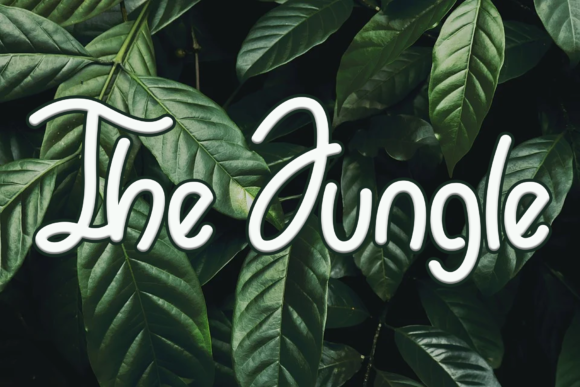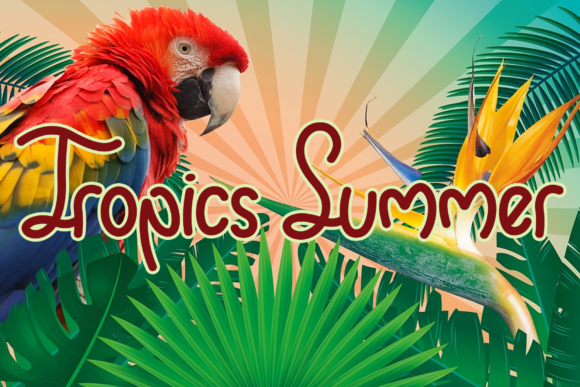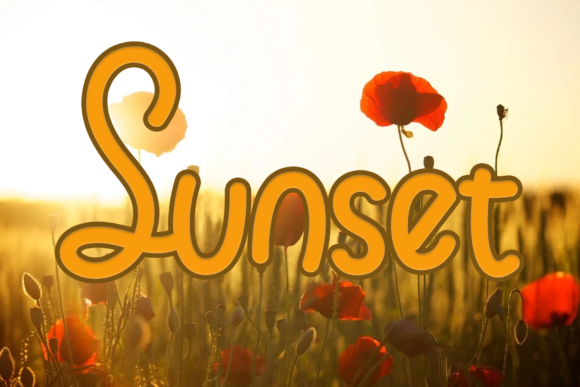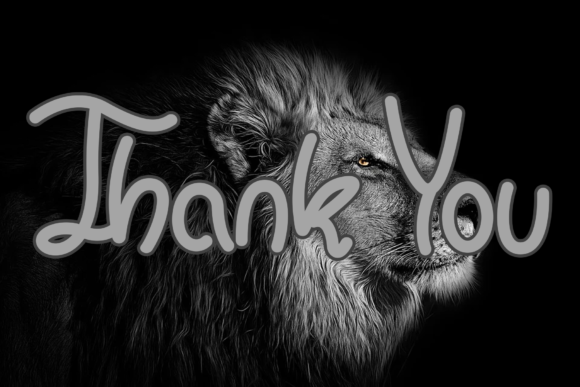
Introduction to Little Monkey Font
Have you ever stared at a blank canvas, searching for the perfect design element to bring your creative project to life? For many designers, that moment of inspiration is elusive – until now. Introducing the Little Monkey Font, a delightful handwritten font that’s sure to add a playful touch to any high-quality design.
With its transparent background and whimsical charm, the Little Monkey Font is a free download waiting to be discovered. This sweet and quirky font is perfect for designers looking to add a personal touch to their work, whether it’s a casual blog post or an informal invitation. Its value lies in its ability to elevate any creative project, making it a valuable resource for designers of all levels.
Key Features of Little Monkey Font
- High-quality design: The Little Monkey Font is a carefully crafted, professional-grade font designed to elevate any creative project.
- Transparent background: This font features a transparent background, making it ideal for use on images or backgrounds with complex designs.
- High-resolution design: The font is designed at a high resolution, making it suitable for use in large-scale designs and print materials.
- Unique, hand-drawn style: The Little Monkey Font features a unique, hand-drawn style that adds a touch of personality to any design project.
- Perfect for creative projects: This font is ideal for use in creative projects such as graphic design, digital art, and typography-based art.
Honest Review: Little Monkey Font
I recently stumbled upon the Little Monkey Font and was excited to give it a try for my next creative project. The font is described as high-quality and comes with a transparent background, which is perfect for any design resource.
- ✨ Great for digital use: The font’s transparent background makes it ideal for use on digital devices, such as websites, social media, and e-books.
However, I did encounter a few limitations during my usage. The font is limited in its expressiveness and may not be suitable for complex, narrative-based projects.
- ⚠️ Limited expressiveness: The font’s design is simple and may not convey the complexity and emotion required for certain creative projects.
- ⚠️ Not suitable for print: The font’s transparent background may not be ideal for print-based projects, such as posters and brochures.
Overall, I was impressed with the Little Monkey Font’s ease of use and versatility. While it may have some limitations, it is a great addition to any designer’s toolkit, especially for free.
For the best results, use the Little Monkey Font in combination with a high-quality background image. This will allow the font to stand out and add a creative touch to your design.
The Little Monkey Font is perfect for designing invitations, posters, and social media graphics. Its transparent background and high-quality design make it ideal for creative projects that require a unique and eye-catching font.